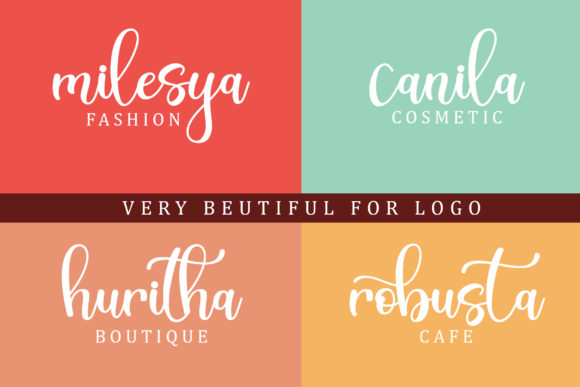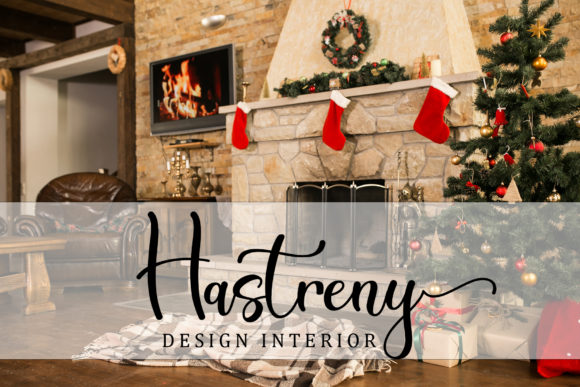
Christsmas Bright Font
db-ku.com - Script & Handwritten -- Christmas Bright is a warm, elegant and cozy handwritten font. it will look gorgeous on each of your festive designs or Christmas letters. This font is PUA encoded which means you can access all of the glyphs and swashes with ease!